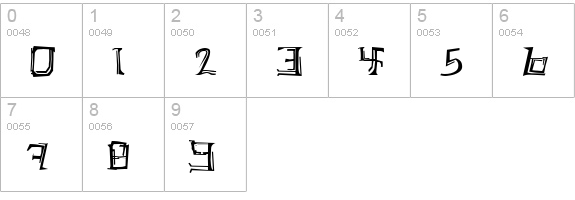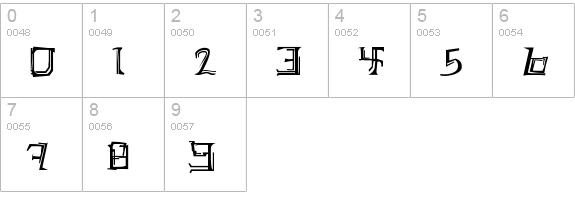
BN Grafity Font Details
Introducing BN Grafity font - a bold and dynamic typeface designed to make a statement. This graffiti-inspired font captures the urban energy and creativity of street art, making it perfect for projects that demand a bold and edgy look. With its unique style and expressive letterforms, BN Grafity font is sure to stand out and make an impact. And the best part? BN Grafity font is available for free download at FontsMarket.com. Whether you're working on a design project, creating eye-catching posters, or simply looking to add a touch of urban flair to your work, this font is a versatile and exciting choice. Embrace the spirit of graffiti art with BN Grafity font and let your creativity shine.